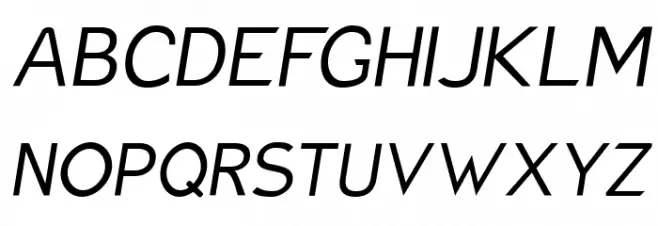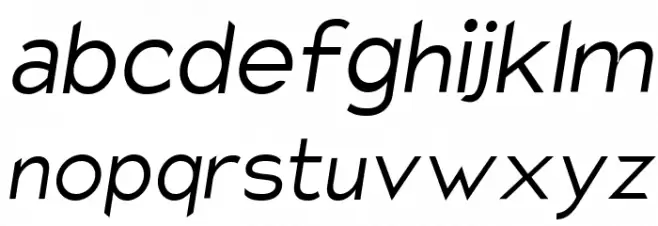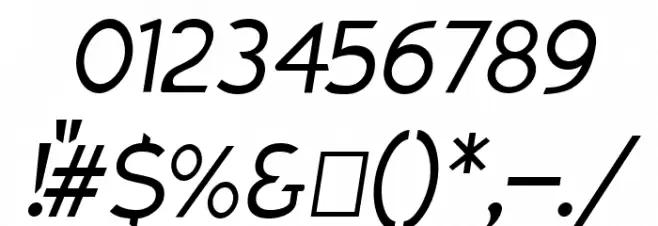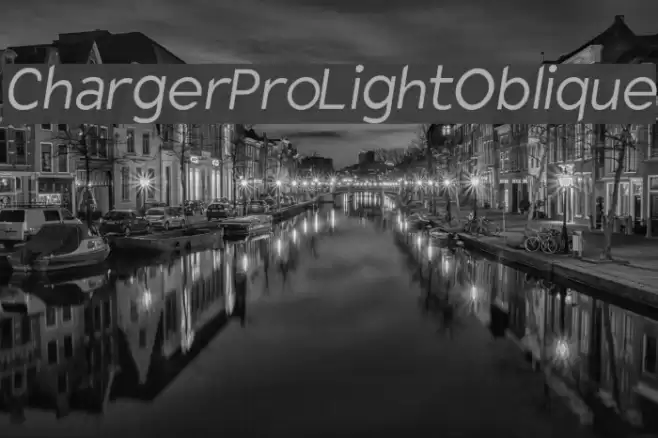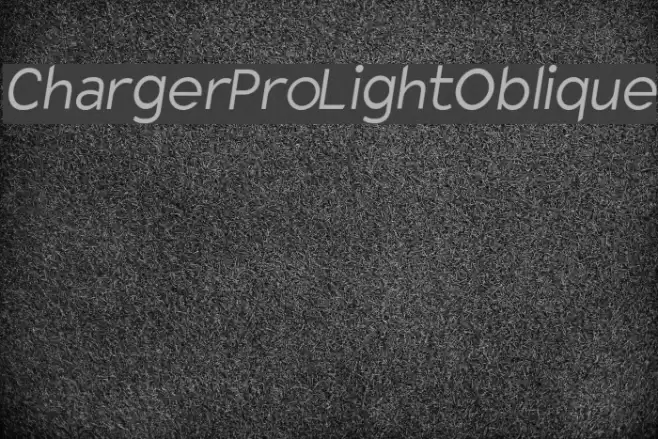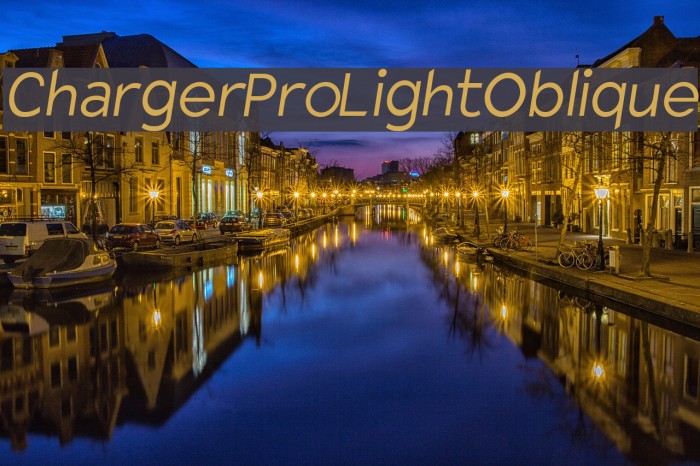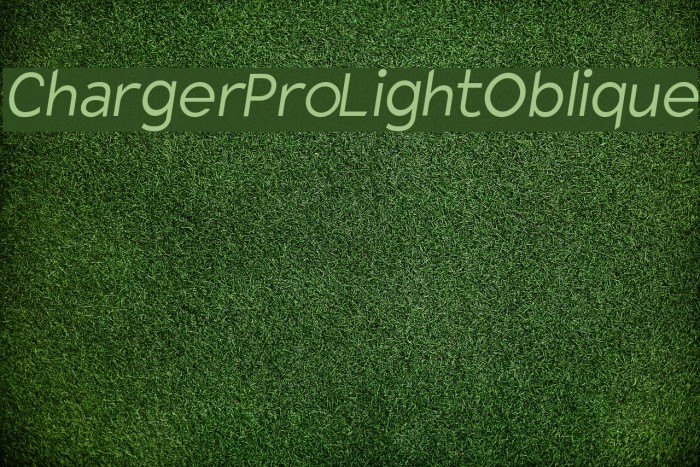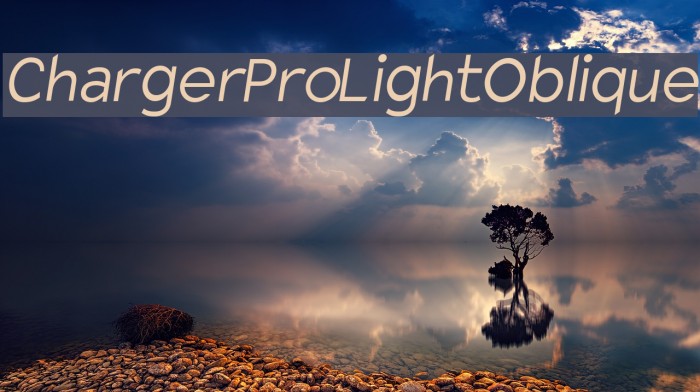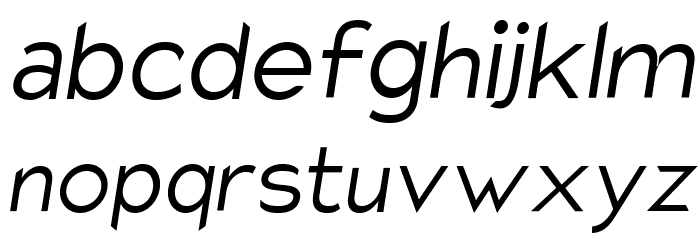
Charger Pro Light Oblique
This font features a sleek and modern design with an oblique style, giving it a dynamic and forward-leaning appearance. The characters are crafted with a light weight, contributing to an airy and elegant look. The sans-serif nature of the font ensures clean lines and a minimalist aesthetic, making it versatile for various design applications. The character spacing is normal, providing a balanced and readable text flow. The font exhibits a medium contrast in stroke thickness, adding subtle depth without overwhelming the viewer. Its overall style is contemporary, suitable for projects that require a modern and sophisticated touch.
A modern, oblique sans-serif font with a light weight and medium contrast.
- Proposed Projects: Ideal for branding, advertising, digital content, and editorial design where a modern and sleek appearance is desired.
- Weight: Light